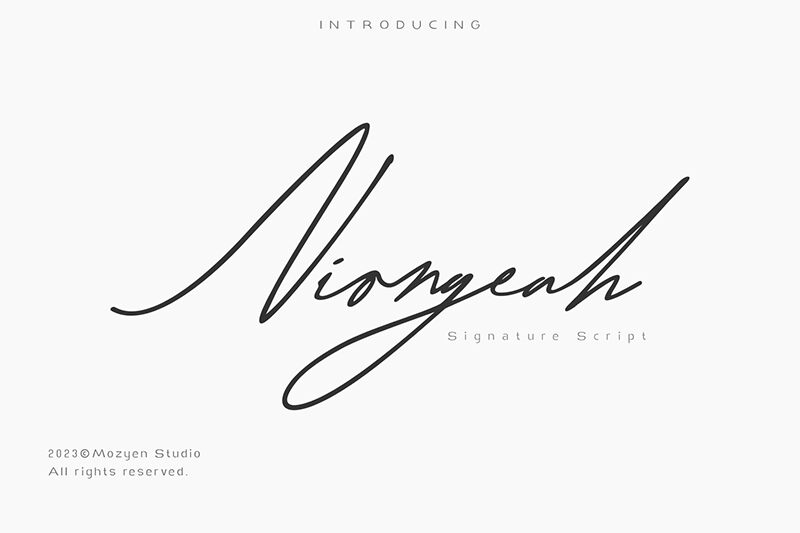
Niongeah
Niongeah font by Mozyen Studio is a light handwritten font with a sophisticated mood, created to organically flow across canvas. It carries an elegant feel, an expressive style, and joins neatly for an outstanding smooth reading experience. Every letter almost looks like pen strokes allowing its users to create lettering with a signature style.
Designed by Muhamad Ali H., Designer from Mozyen Studio